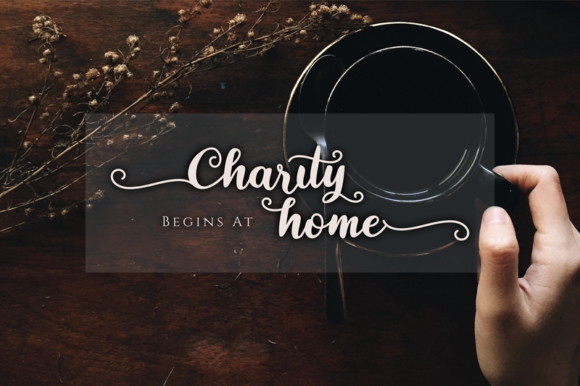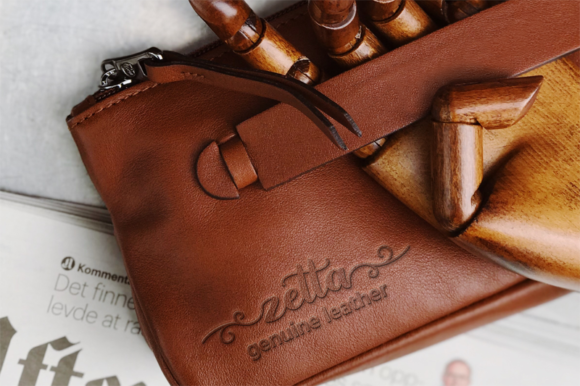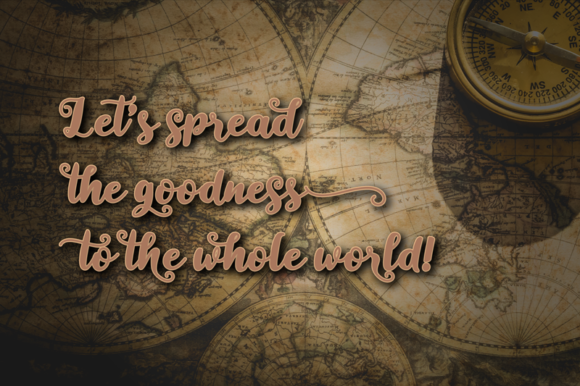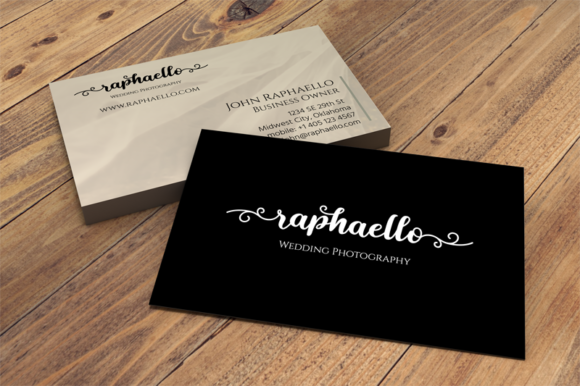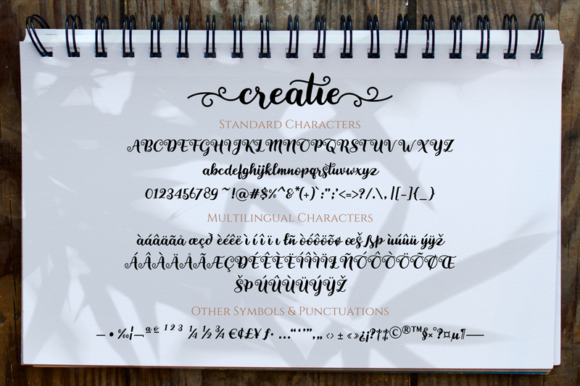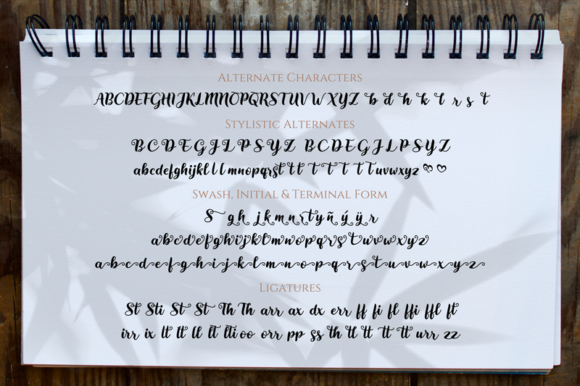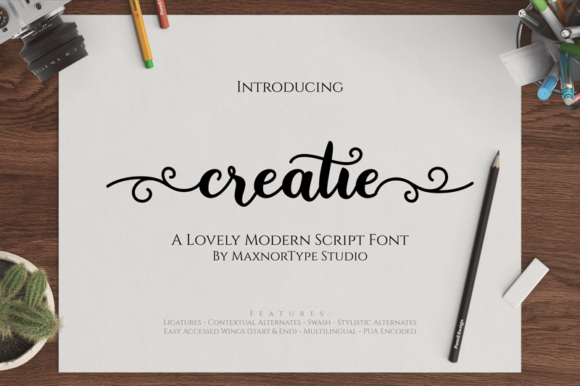
Creatie Font: Elevate Your Designs with this Lovely Modern Script Font
Are you tired of using the same old fonts in your designs? Look no further than Creatie Font, a stunning modern script font that is sure to take your creative projects to the next level. This beautiful hand-lettered script font is designed to add a touch of elegance and sophistication to any design, making it perfect for designers and crafters alike.
What Makes Creatie Font So Special?
Creatie Font is more than just a pretty face – it boasts an impressive range of features that make it a versatile and practical choice for any design project. Some of the key features of Creatie Font include:
- Multilingual Support: Creatie Font supports multiple languages, making it a great choice for designers who work with clients from around the world.
- Ligatures: The font includes ligatures, which help to create a more natural, hand-written feel.
- Contextual Alternates: Creatie Font also features contextual alternates, which allow the font to adapt to different design contexts.
- Stylistic Alternates: With stylistic alternates, you can easily switch between different font styles to add variety to your design.
- Swashes: Add a touch of drama to your design with the font’s swashes.
- Wings: The font’s wings provide an extra decorative element that can be used to add flair to your design.
Creatie Font is a dream come true for designers and crafters who want to add a personal touch to their work. Whether you’re creating:
- Branding and Logos: Use Creatie Font to create a unique and memorable brand identity.
- Stationery and Invitations: Add a touch of elegance to your stationery and invitations with this beautiful script font.
- Web Graphics and Social Media: Use Creatie Font to create eye-catching web graphics and social media posts.
- Crafting and DIY Projects: Add a personal touch to your crafting and DIY projects with this lovely font.
Why Choose Creatie Font?
With so many fonts on the market, why choose Creatie Font? Here are just a few reasons why this font stands out:
- Unique and Eye-Catching: Creatie Font is a truly unique and eye-catching font that will help your designs stand out from the crowd.
- Highly Versatile: With its range of features and multilingual support, Creatie Font is a highly versatile font that can be used in a wide range of design projects.
- Elegant and Sophisticated: This beautiful script font adds a touch of elegance and sophistication to any design.
Get Creative with Creatie Font
Ready to take your designs to the next level with Creatie Font? Here’s how to get started:
- Experiment with Different Features: Play around with the font’s features, such as ligatures and swashes, to see what works best for your design.
- Pair it with Other Fonts: Experiment with pairing Creatie Font with other fonts to create a unique and eye-catching design.